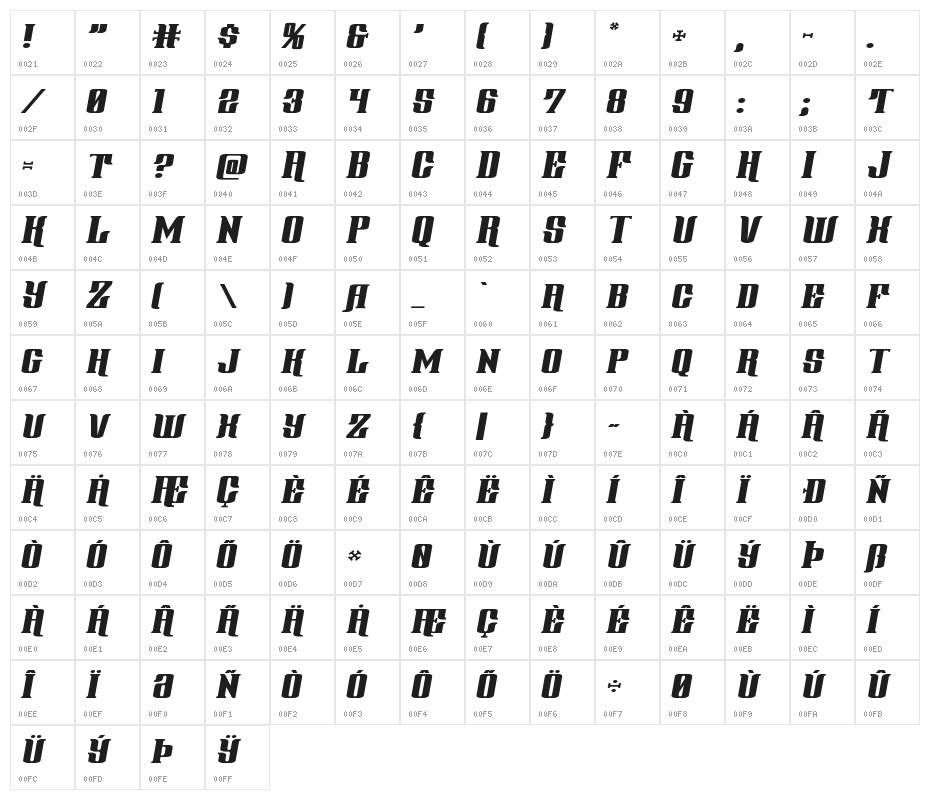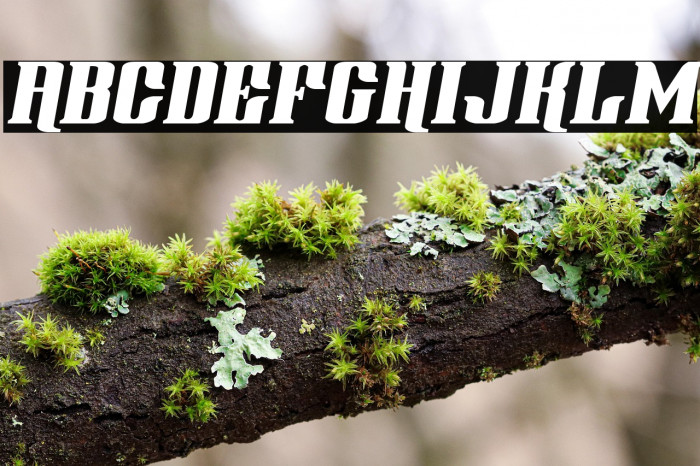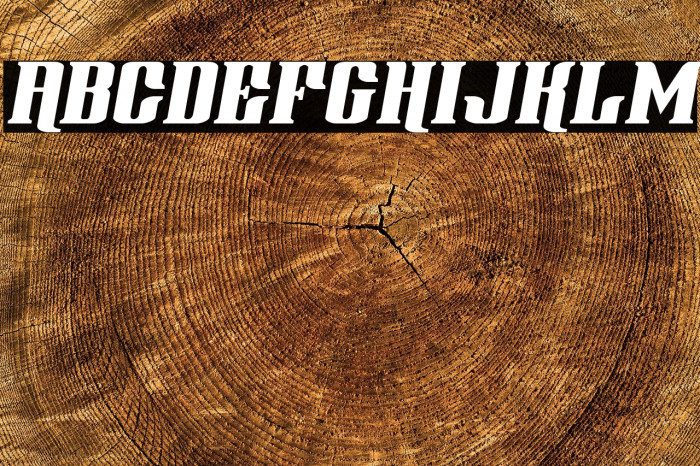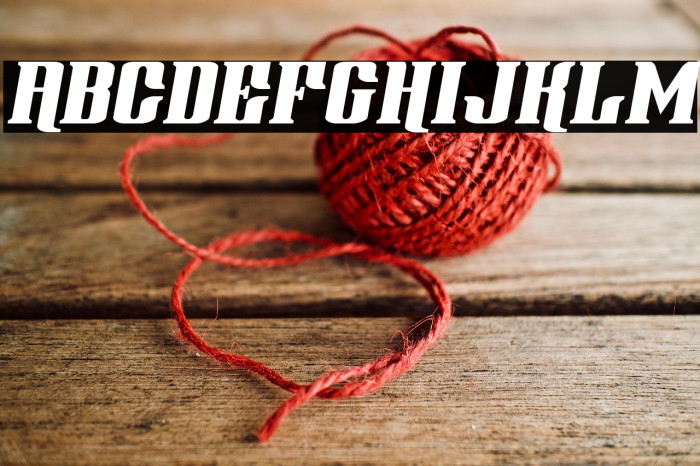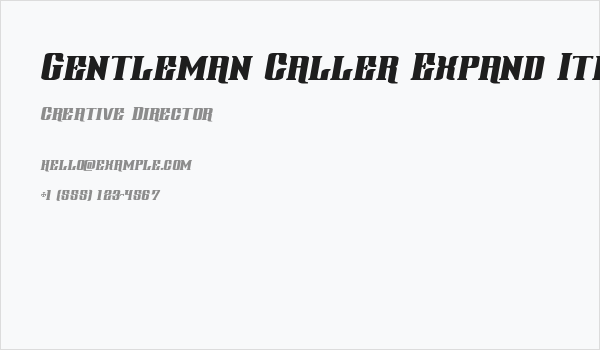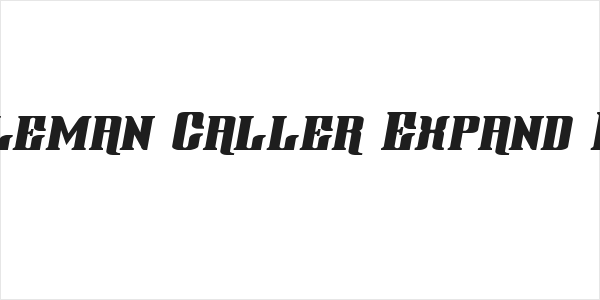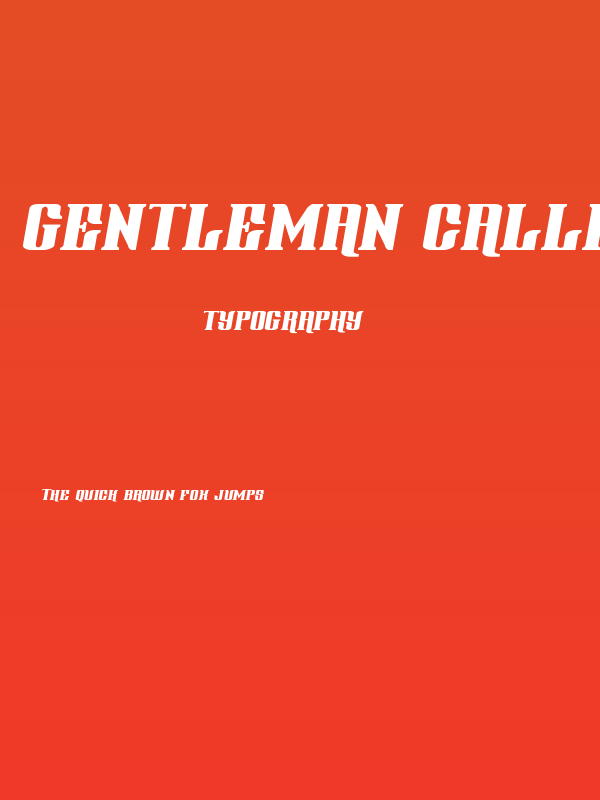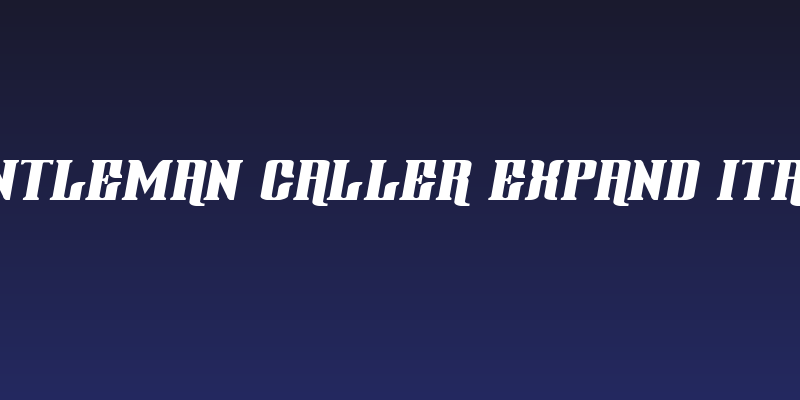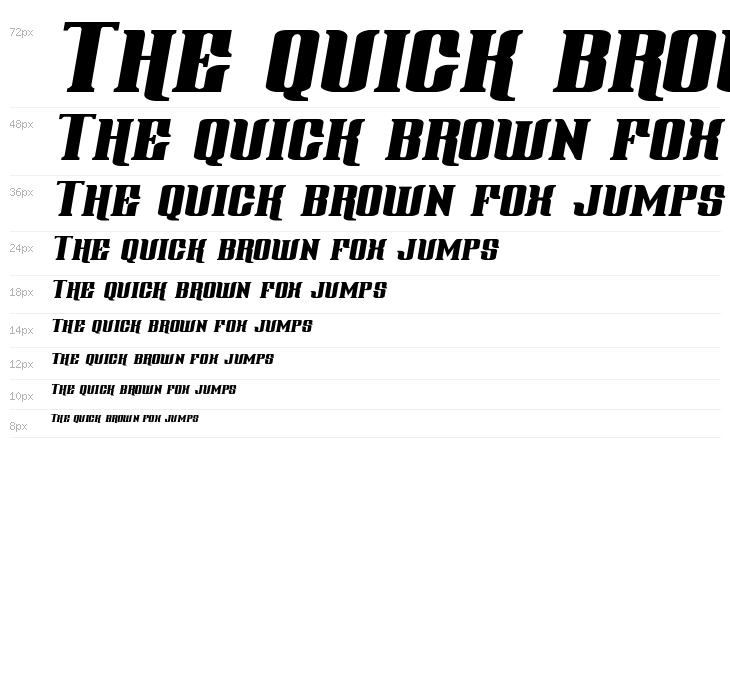
Gentleman Caller Expand Italic Font
Gentleman Caller Expand Italic Description
This font features a bold and dynamic style with a distinct italic slant, giving it a sense of movement and energy. The characters are robust and slightly condensed, with sharp angles and a strong presence. The uppercase letters are particularly striking, with a uniform height and consistent stroke width. The lowercase letters maintain the same boldness, ensuring readability while adding a touch of elegance. Numbers and special characters are designed to match the overall aesthetic, making them suitable for a variety of uses. The font's high contrast between thick and thin strokes adds to its dramatic appearance, making it ideal for attention-grabbing headlines and impactful designs.
Proposed ProjectsIdeal for posters, branding, headlines, and any design requiring a bold statement.